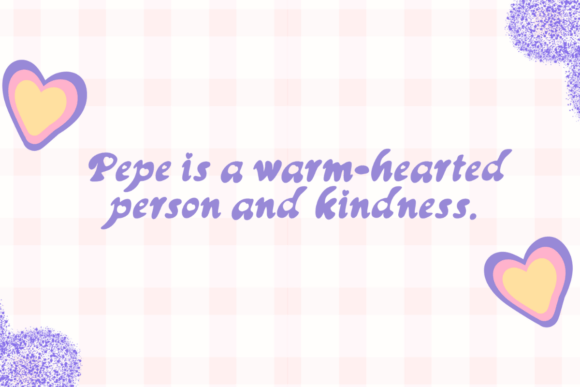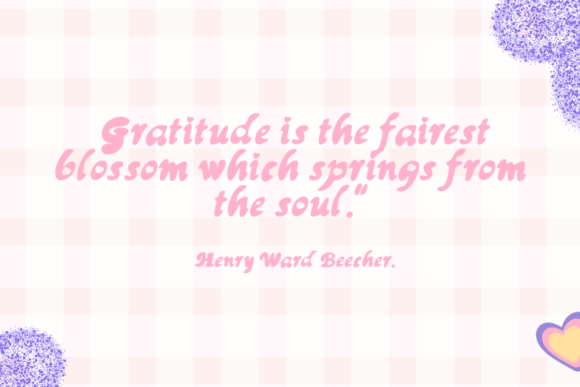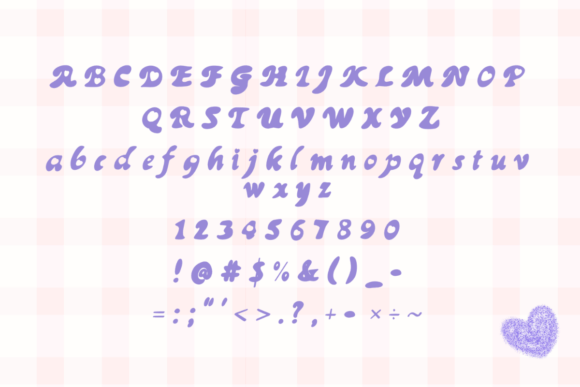
Introduction to Pepe Font
Have you ever stumbled upon a font that just makes your design sparkle? For me, that moment came when I discovered the Pepe Font. Its adorable, cursive style immediately captured my attention, and I couldn’t wait to see it in action. With its cute and heartwarming vibe, it’s the perfect addition to any creative project.
As a designer, I know how valuable a high-quality, versatile font can be. The Pepe Font is exactly that – a design resource that can elevate your work and make it stand out. Whether you’re working on a Christmas campaign, a Valentine’s Day promotion, or a craft project, this font is sure to add a touch of whimsy and charm.
Key Features of Pepe Font
- High-quality design resource with a playful and creative feel, ideal for any project that requires a fun and approachable tone.
- Features a transparent background, allowing for easy customization and integration into various design projects, from digital to print.
- Includes a wide range of characters, including uppercase and lowercase letters, numbers, and punctuation marks, making it a versatile design resource for any creative project.
- Designed with a high resolution of 300 DPI, ensuring that the font remains crisp and clear when scaled up or used in large formats.
- Unique characteristics include a bold and expressive style, with subtle nuances in letterforms that add depth and interest to any text.
- Perfect for designers, artists, and anyone looking for a high-quality, free design resource to elevate their creative project.
Honest Review: Pepe Font
As a designer, I’ve had the chance to work with a variety of fonts, and I’m always on the lookout for high-quality, free resources that can elevate my creative projects. Recently, I discovered the Pepe Font, and I’m excited to share my honest review with you.
- ✨ Unique and playful design: The Pepe Font is a fun and quirky addition to any project, making it perfect for those looking to add some personality to their work.
- ✨ Transparent background: The font’s transparent background makes it easy to use with any background color or image, giving you complete design flexibility.
- ✨ High-quality glyphs: The font’s glyphs are crisp and well-designed, ensuring that your text looks great at any size.
- ⚠️ Limited language support: The Pepe Font is currently only available in a limited set of languages, which may be a drawback for designers working on projects that require multiple languages.
- ⚠️ Not suitable for formal projects: The Pepe Font’s playful design may not be suitable for formal or professional projects, where a more serious tone is required.
Overall, I think the Pepe Font is a great addition to any designer’s toolkit, especially for creative projects that require a unique and playful touch. While it may have some limitations, the font’s high-quality design and transparent background make it a valuable resource for any designer looking to add some personality to their work.
Pepe Font
Pepe Font is a high-quality, free design resource perfect for any creative project. Its transparent background makes it easy to integrate into various design elements.
Tips for Getting the Most Out of Pepe Font
Experiment with different font sizes and colors to maximize the impact of Pepe Font in your designs.
Pepe Font is perfect for creative projects such as logos, social media graphics, and infographics.